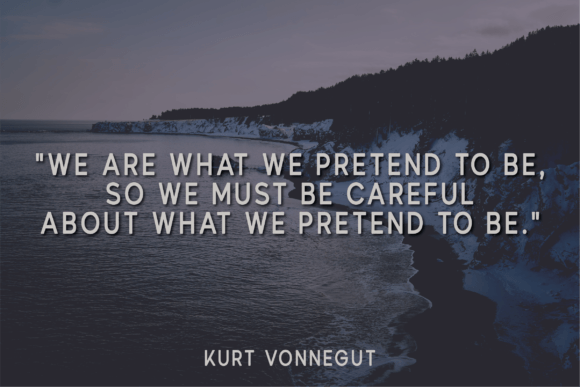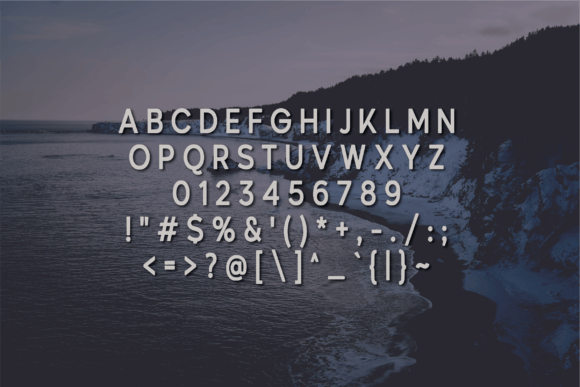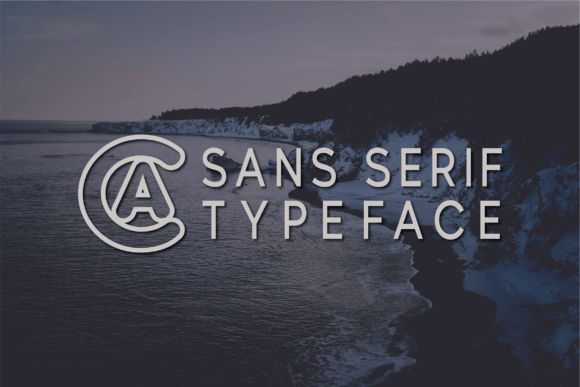
Introduction to Infinity Font
Have you ever stared at a blank page, your mind racing with ideas, yet struggling to put them into words? It’s a feeling every designer knows well. But what if you had the perfect tool to bring your creative project to life? Enter the Infinity Font, a stunning sans serif font that will elevate your designs and leave a lasting impression.
With its modern and classy aesthetic, the Infinity Font is the perfect addition to any design. Whether you’re working on a wedding invitation, a quote, or an advertisement, this versatile font is sure to make your ideas shine. Its high-quality design and transparent background make it a valuable resource for any designer looking to add a touch of sophistication to their work.
Key Features of Infinity Font
- High-quality vector graphics for precise and scalable designs.
- Available in a transparent background option for seamless integration with various creative projects.
- High-resolution design (up to 300 DPI) for crisp and clear visuals in print and digital media.
- Unique, modern design suitable for a wide range of creative projects, from branding to editorial content.
Honest Review: Infinity Font
I recently had the chance to work with Infinity Font for a creative project, and I must say, I was impressed with its high quality. The transparent background made it easy to integrate into my design without any issues.
- High-quality design: Infinity Font has a clean and modern look that’s perfect for any creative project.
- Easy to use: The transparent background and simple design make it easy to work with, even for complex projects.
- Limited customization options: While the font itself is high-quality, I found that I couldn’t customize it as much as I would have liked.
- Not suitable for all designs: Due to its modern look, Infinity Font may not be the best choice for projects that require a more traditional or vintage feel.
Overall, I’m impressed with Infinity Font and would recommend it as a design resource for any creative project. While it may have some limitations, its high quality and free download make it a valuable addition to any designer’s toolkit.
Tips for Getting the Most Out of Infinity Font
Infinity Font is commonly used in design projects that require a unique and creative touch. It’s perfect for branding, advertising, and marketing materials, as well as for personal projects such as blog posts and social media graphics.